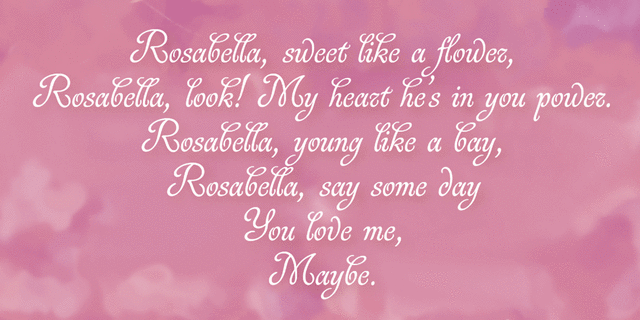
About Rosabella is a script typeface with plenty of decorative details -- flourishes, swashes, twists and other elements, which impart an exquisite and festive look to the face. A big number of alternates and ligatures make it possible to imitate a live calligraphic writing. Lowercase letters are divided into several stylistic sets from relatively modest variants to the most decorative contextually dependent swashed shapes. Besides there are two sets of uppercase letters — the second one contains larger and more complex shapes. Letters from different stylistic sets can be used in a wide variety of combinations with different levels of embellishments. Rosabella was designed by Isabella Chaeva for display matters, greetings and advertising. Released by ParaType in 2012.
Associations for font family RosabellaTypeface personality and character:
festive, solemn, polite, beautiful, orderly, musical, voiced, elegant, mannered, feminine, golden, brilliant, luxurious, artistic, chic, refined, romantic, glad, graceful, wedding, fairy, New Year, rich, spring, passionate, happy, creative, sexy, pretty, nice, fantastic, Glamorous, vegetable, presents, girlish
art, exhibition, restaurant, luxury, etching, wedding, tattoo, decoration, jeweler, flowers, gifts, candies, dessert, cafe, cake, dance, celebration, confectionery, sweets, princess, tale, ice cream, holiday, barbershop, New Year, fashion, bakery, love, Spring, coffee, romance, dress, clothes, Christmas, kitchen, selfie, sea, beauty, trophy, reward, boutique, Instagram, glamour, landscape Typeface associated with age: